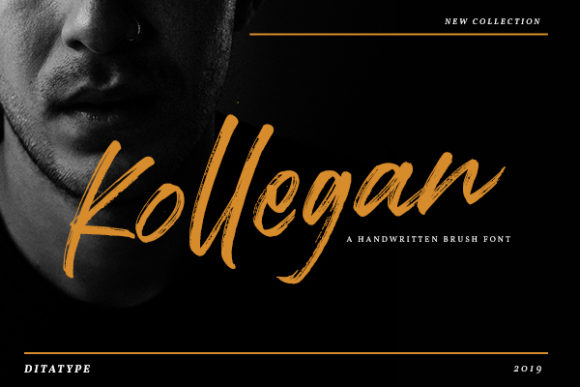
Introducing Kollegan Font: The Ultimate Handwritten Masterpiece for Your Creative Endeavors
Step into the realm of artistic expression with Kollegan Font, a captivating creation by Ditatype that exudes charm and individuality. This casual, fun handwritten font, meticulously crafted with a brush pen, is ready to transform your digital designs into remarkable works of art.
Kollegan Font's playful nature adds a touch of whimsy to your creations, making it the perfect choice for logos, branding, social media posts, and any crafty DIY projects that demand a personal touch. Its clean and slightly quirky style effortlessly elevates your designs, giving them a distinctive edge that resonates with audiences.
Unleash your imagination and let Kollegan Font guide you on a journey of creative exploration. With its ability to capture the essence of handwritten notes, Kollegan Font breathes life into your digital creations. Its versatility extends to a wide range of projects, making it a must-have tool for modern creatives seeking unique and engaging designs.
Kollegan Font is more than just a font; it's a gateway to a world of creative possibilities. Its carefully crafted characters evoke a sense of authenticity, adding a human touch to your digital interactions. Experience the joy of crafting designs that resonate with your audience on a deeper level.
Don't settle for ordinary fonts that blend into the background. Embrace the extraordinary with Kollegan Font, a font that speaks volumes without uttering a single word. Its unique charm will captivate your audience, leaving a lasting impression that sets your brand apart from the rest.